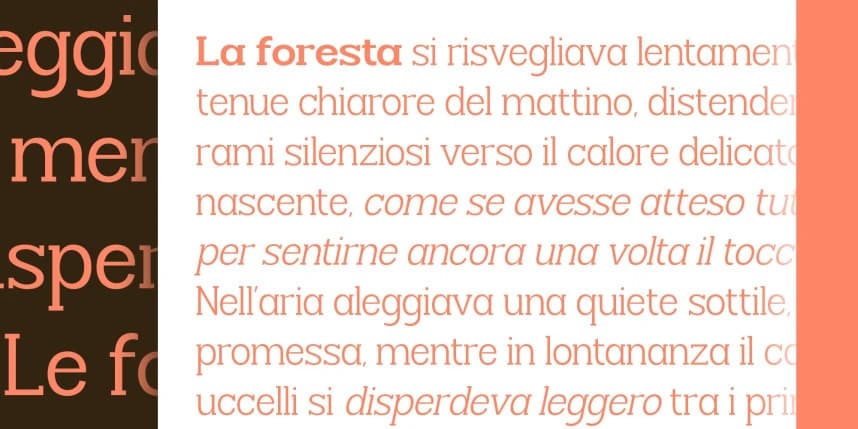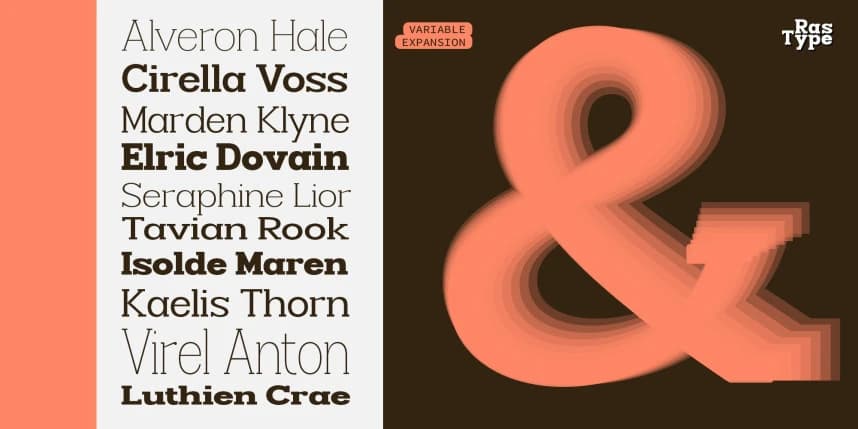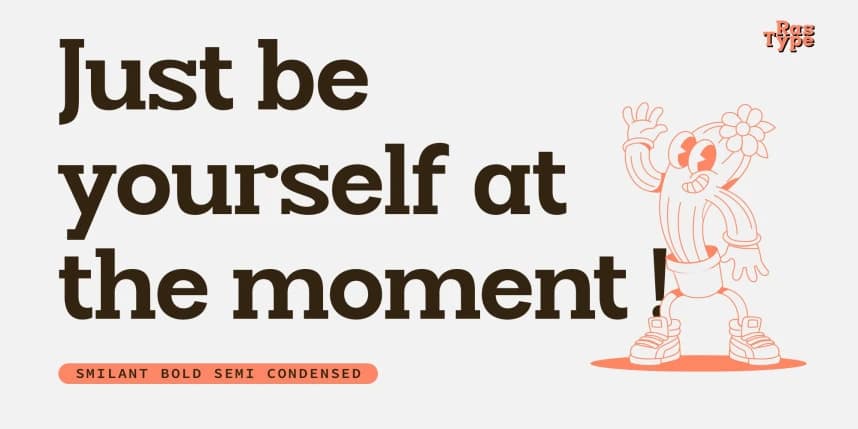
Smilant Font Family
Smilant Font Family - This typeface is a contemporary slab serif built on a strong geometric foundation, combining bold structure with a warm, approachable feel. Its prominent, blocky serifs provide stability and confidence